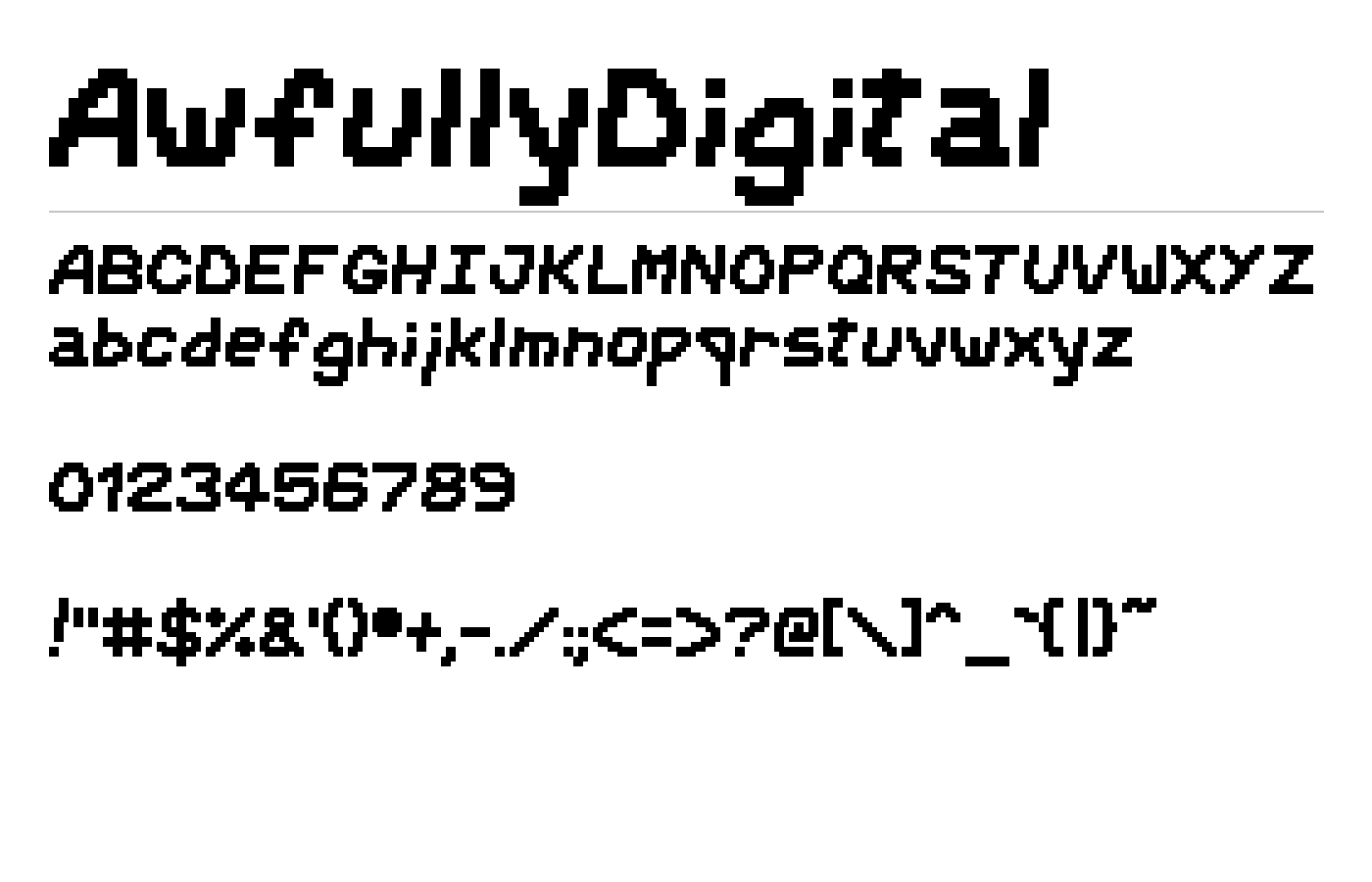
AwfullyDigital is a pixelated sans serif font that captures the retro feel of vintage computer screens and early digital displays. With its bold, blocky letterforms and uniform stroke weight, this font offers a charmingly nostalgic and playful style perfect for tech-inspired designs, video games, and digital art projects. Its clear readability at small sizes and distinctive pixel edge style make it ideal for logos, headlines, and creative branding that seeks a unique digital aesthetic.
AwfullyDigital Font
About AwfullyDigital Font
| Font family | AwfullyDigital Font |
| Designer | Aryel Filipe |